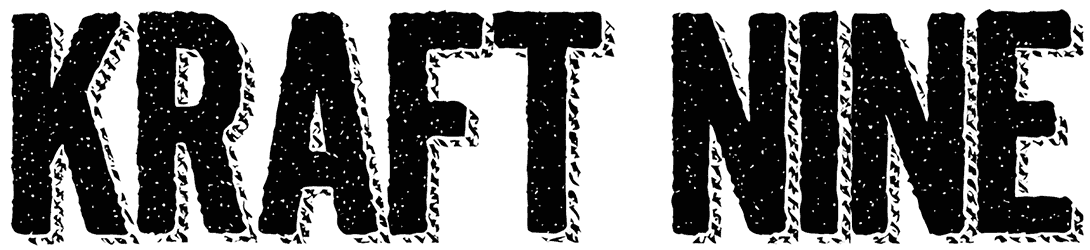
Kraft Nine Font
If you want a creative text, you can use a hand-painted look. Kraft Nine has a blocky and sans serif handwritten character style and it will give a friendly and modern look to your reader.
You can use this vintage industrial font for children’s books, product introductions and naming, cartoon and motivational movie titles, inspirational books, and channel banners. The font only has capitals and its punctuational set only has two characters.
Note: This font is uppercase only. Upper and lowercase letters differ slightly.